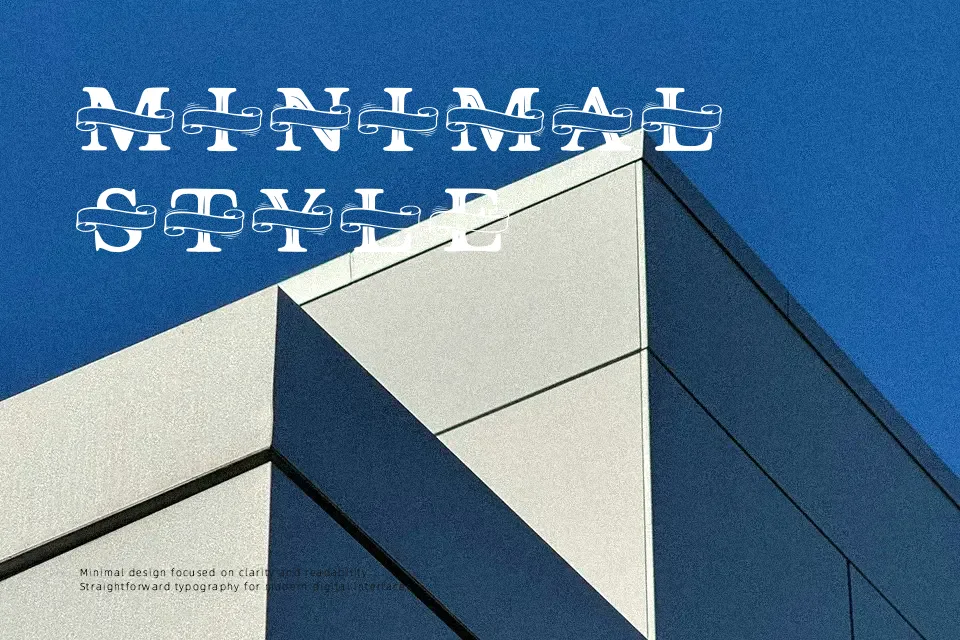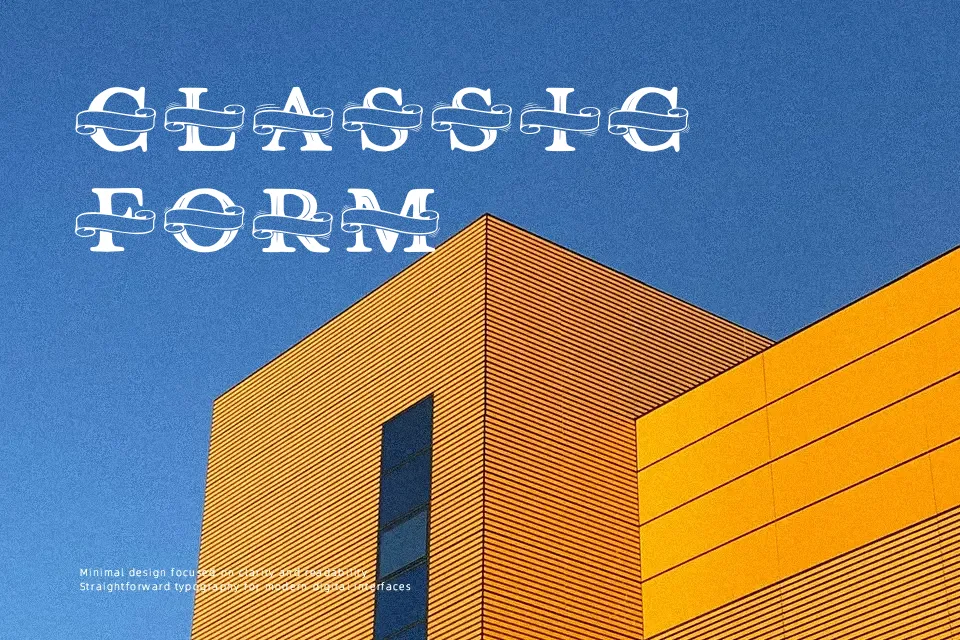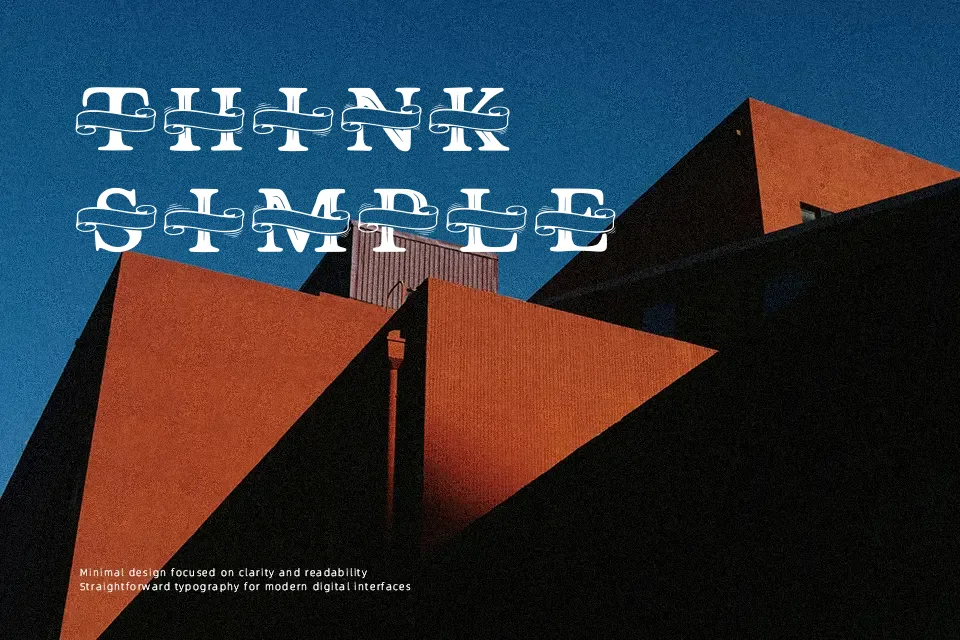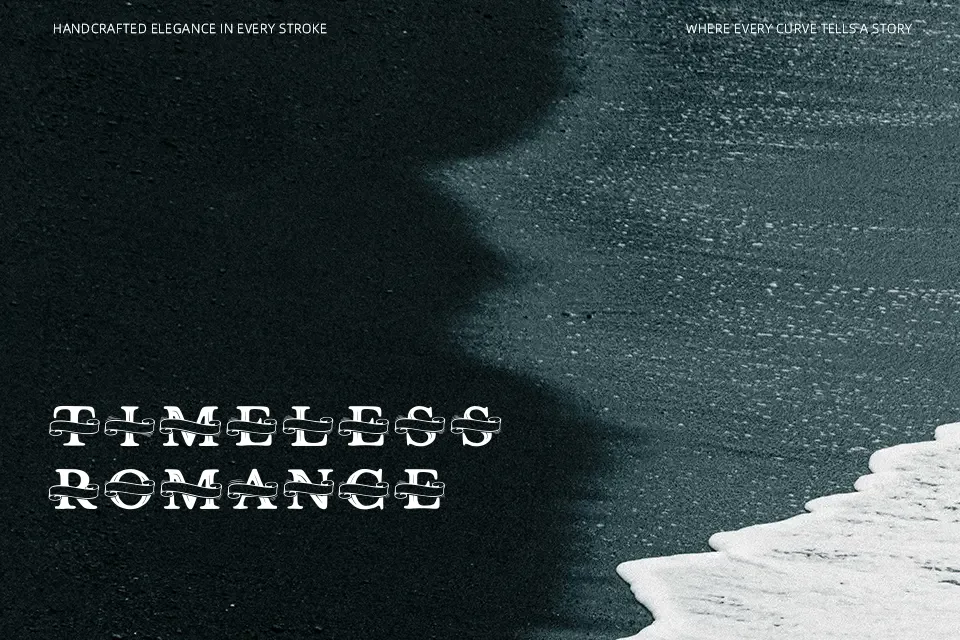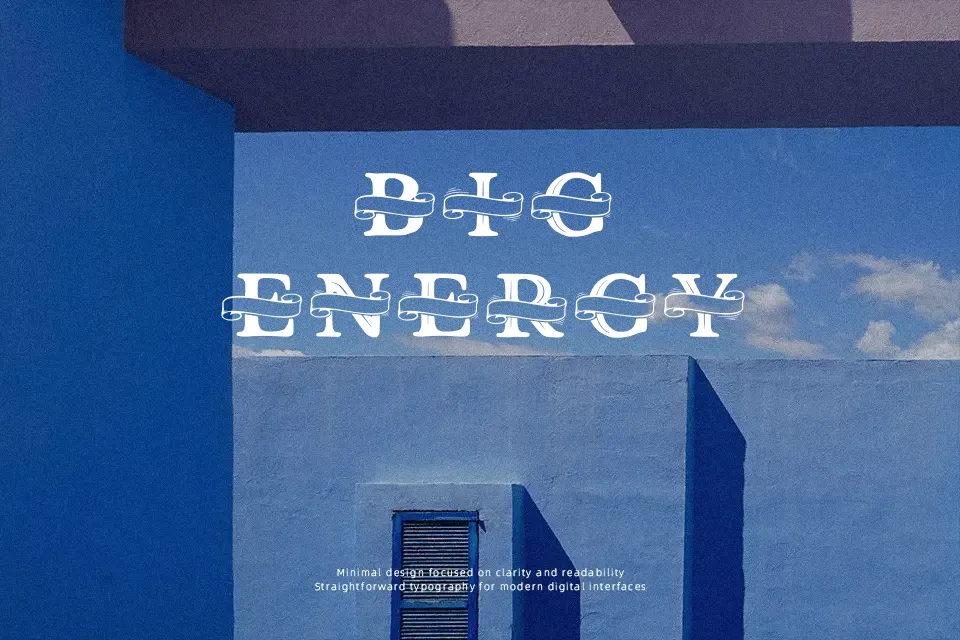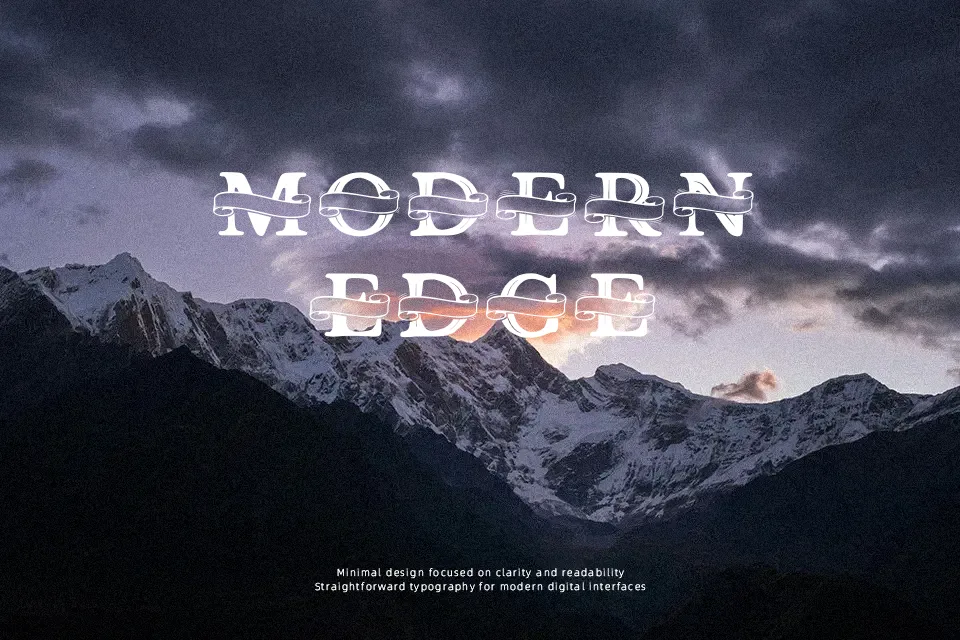
Shelana Monogram Split Font
Designed by Rochart Studio
Shelana Monogram Split Font delivers a decorative uppercase collection characterized by swirling calligraphic swashes and a clean horizontal split across the midline of each character. Smooth, varying stroke weights transition between fine hairline curves and thicker structural stems, creating noticeable contrast throughout each glyph. Wide character proportions and expansive lateral flourishes demand open layout spacing to prevent decorative overlapping. This typeface performs exceptionally well on personalized cutting crafts, wedding stationery headers, and custom anniversary signage. However, the ornamental split structure makes the design entirely unsuitable for continuous reading or compact paragraph settings. The letterforms maintain crisp distinction only when rendered at larger display scales.
Best For: personalized wedding stationery, custom laser-cut signage, vinyl craft decals, monogrammed gift items
Not Ideal For: continuous paragraph reading, small website body text, mobile interface labels, dense corporate documents
Perfect for branding, holiday, and invitation, with a classic and calligraphy style.